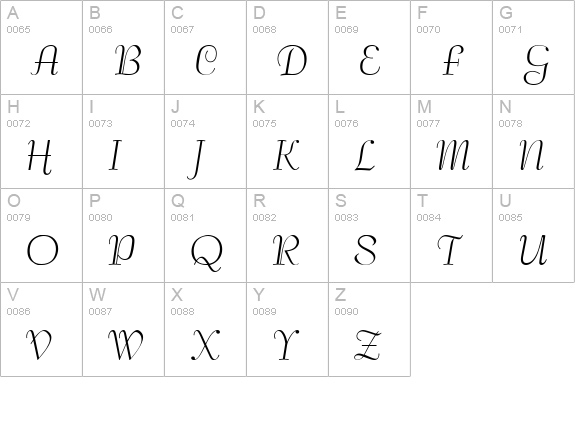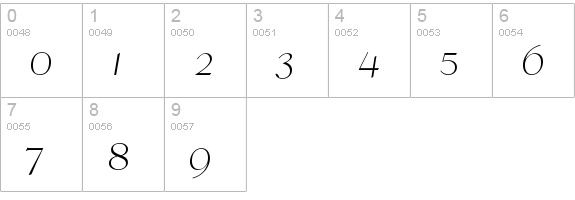
Petticoat Script SSi Font Details
Petticoat Script SSi font is a charming and elegant typeface that exudes a sense of grace and sophistication. With its delicate and flowing strokes, this font is reminiscent of vintage handwritten letters, making it perfect for adding a touch of nostalgia to any design. The beauty of Petticoat Script SSi font lies in its attention to detail. Each curve and loop is carefully crafted, creating a seamless and visually pleasing result. This font is guaranteed to captivate your audience and add a touch of elegance to your projects. One of the best things about Petticoat Script SSi font is that it is available for free. Yes, you read that right! This stunning font can be freely downloaded at FontsMarket.com, allowing you to enhance your designs without breaking the bank. Whether you are working on invitations, logos, or any other creative project, Petticoat Script SSi font will undoubtedly elevate your design to new heights. So why wait? Unlock the potential of your designs with the timeless beauty of Petticoat Script SSi font. Download it for free at FontsMarket.com and let your creativity soar.